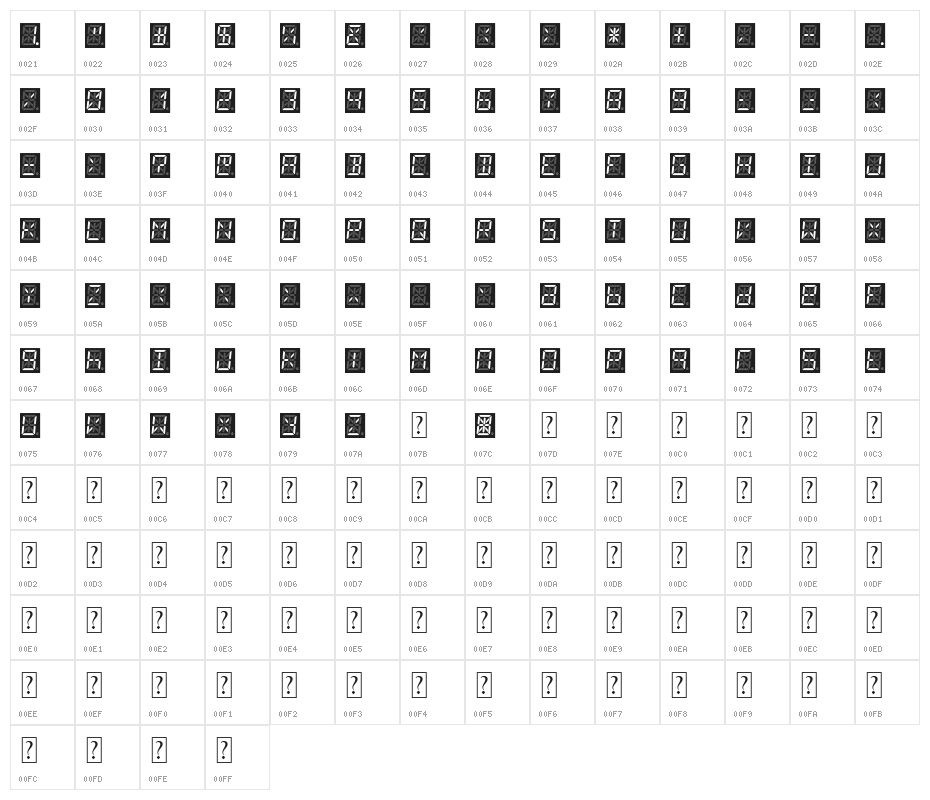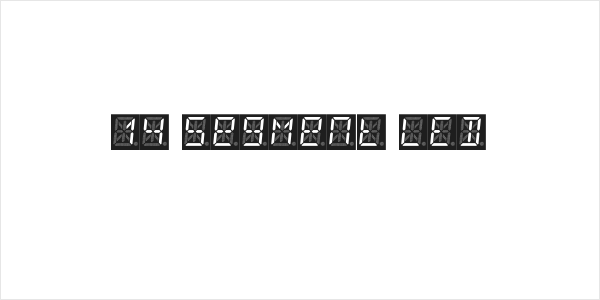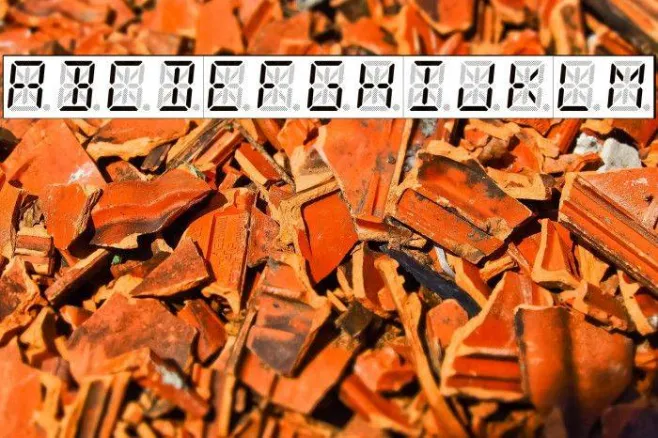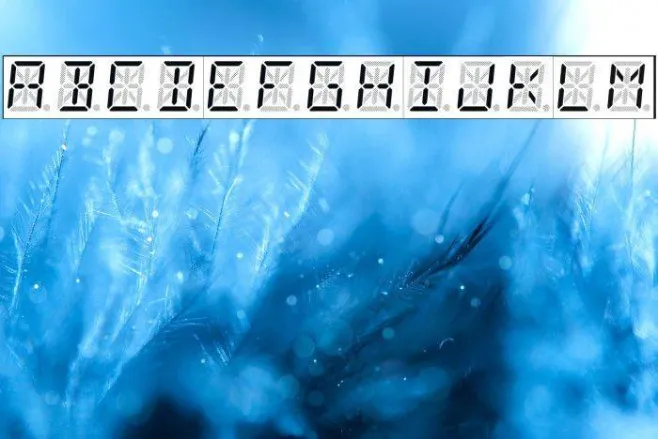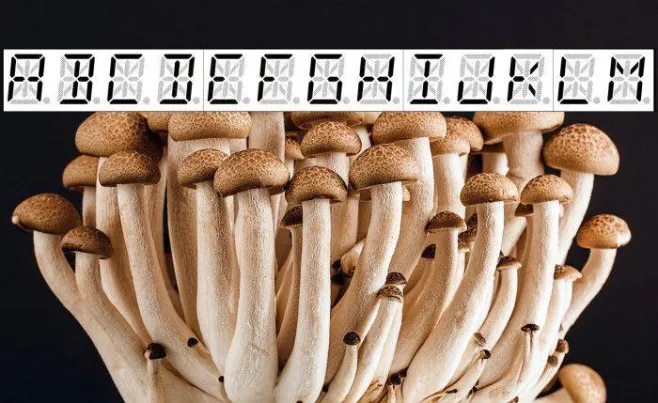
14 Segment LED Font
14 Segment LED Description
This font is designed to mimic the appearance of a 14-segment LED display, commonly found in digital clocks and electronic devices. Each character is constructed using a combination of segments that light up to form letters, numbers, and symbols. The style is highly geometric and modular, with each segment having a consistent width and angle, creating a uniform and mechanical look. The characters are monospaced, meaning each one occupies the same amount of horizontal space, which is typical for digital displays. This font is ideal for conveying a retro or technological aesthetic, reminiscent of early digital technology.
| Overall Style | Modern, Technological |
| Use Case | Digital displays, Retro designs, Technology-themed projects |
| Proposed Projects | Ideal for digital-themed designs, retro technology projects, electronic device interfaces, and any creative work requiring a digital or futuristic look. |